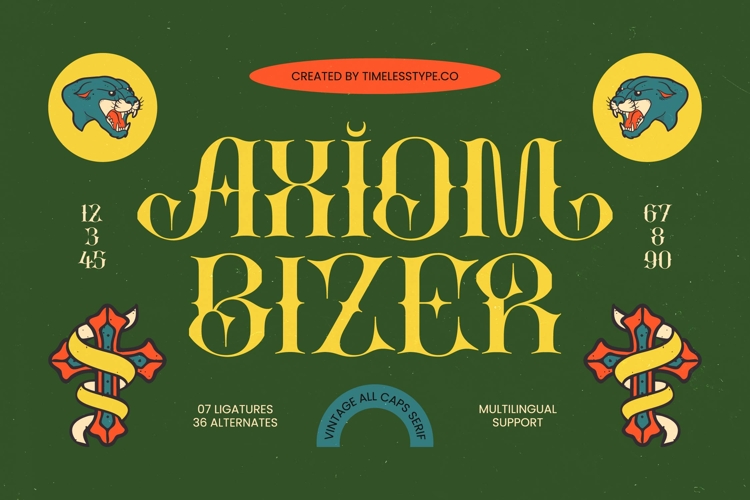
Axiom Bizer - Vintage All Caps Serif
Axiom Bizer - Vintage All Caps Serif, a typeface designed to command attention through its bold serif architecture and classic allure. This font masterfully blends Victorian elegance with a modern high-contrast finish, making it the definitive choice for designers seeking a premium aesthetic. By integrating Axiom Bizer - Vintage All Caps Serif into your toolkit, you gain access to a visually striking asset that elevates any layout from standard to extraordinary.
Unleash unparalleled creative freedom with the extensive range of custom ligatures and stylistic alternates included within Axiom Bizer - Vintage All Caps Serif. These unique features allow for artisanal craftsmanship in every word, providing an authentic vintage feel that resonates with quality and heritage. The intricate detailing of each character ensures that Axiom Bizer - Vintage All Caps Serif remains legible while delivering a powerful narrative punch for your most ambitious design projects.